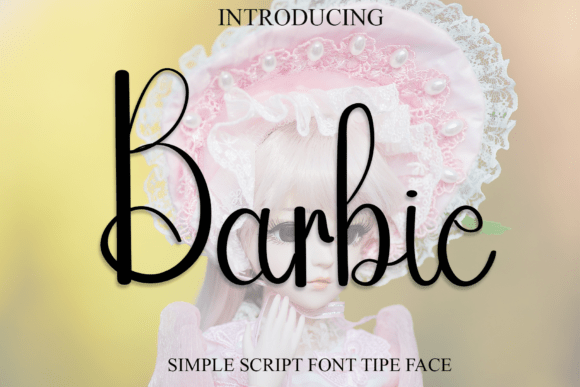
The Magical World of Barbie Font: A Designer’s New Best Friend
I’ll never forget the time I was working on a whimsical invitation design for a friend’s birthday party. I had the perfect concept in mind, but I just couldn’t find the right font to bring it all together. The design needed to be playful, friendly, and inviting – and that’s when I stumbled upon the Barbie font. It was like a breath of fresh air! The round, playful strokes and charming, hand-drawn aesthetic instantly captured the feel I was going for. In this article, I’ll share my experience with the Barbie font, its features, and how you can make the most of it in your designs.
Here’s what I’m obsessed with about the Barbie font:
- ✨ Warm and Friendly Vibe: The font exudes a casual, creative feel that’s perfect for personal projects, social media graphics, and invitations.
- ✅ Easy to Read: The playful strokes are smooth and easy on the eyes, making it a great choice for body text and headings.
- 🎉 Versatile: It works beautifully for both digital and print designs, from party invites to blog posts.
Now, let’s talk about a couple of quirks:
- 🤔 Limited Formality: While the font is amazing for casual designs, it might not be the best fit for more formal projects, like business presentations or professional reports.
- Explore the font’s OpenType features, such as stylistic alternates, to add more personality to your text.
The Story Behind Barbie Font: A Glimpse into Its Design
While I couldn’t find any information on the actual designer of the Barbie font, it’s clear that it was created with love and attention to detail. The font’s playful strokes and charming aesthetic make it feel like a warm hug. Imagine a designer who loves crafting and DIY projects, sitting down to create a font that would make their own creative pursuits more enjoyable. That’s the kind of care and attention that’s gone into creating the Barbie font.
Q: What type of projects is the Barbie font best suited for?
A: The Barbie font is perfect for personal projects, social media graphics, invitations, and DIY crafts. It’s ideal for designs that require a friendly, approachable feel.
Q: Can I use the Barbie font for print designs?
A: Absolutely! The Barbie font works beautifully for print designs, from party invitations to flyers and brochures.